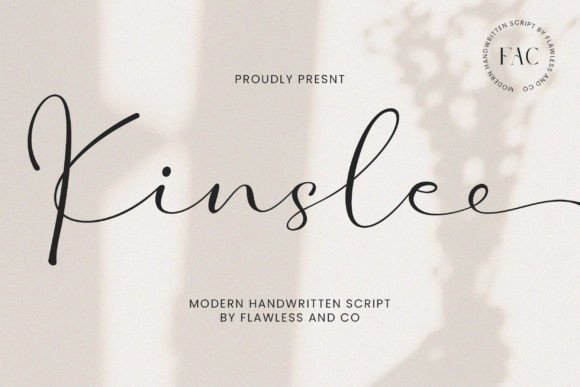
Introducing Kinslee Font - A Masterpiece of Calligraphy for Unparalleled Designs!
Unleash the allure of Kinslee Font, a beautiful script typeface that transforms your designs into captivating works of art. Meticulously crafted by Flawless And Co., this modern handwritten font adds a touch of elegance and sophistication to any project you undertake.
With its graceful curves and sweeping strokes, Kinslee Font evokes a sense of timeless beauty. Whether you're creating stunning posters, eye-catching logos, or elegant invitations, this font will elevate your designs to new heights.
And the best part? Kinslee Font comes with a collection of connected letters and swashes, allowing you to add a touch of flair and personality to your designs. Experiment with different combinations to create unique and captivating effects that will leave a lasting impression.